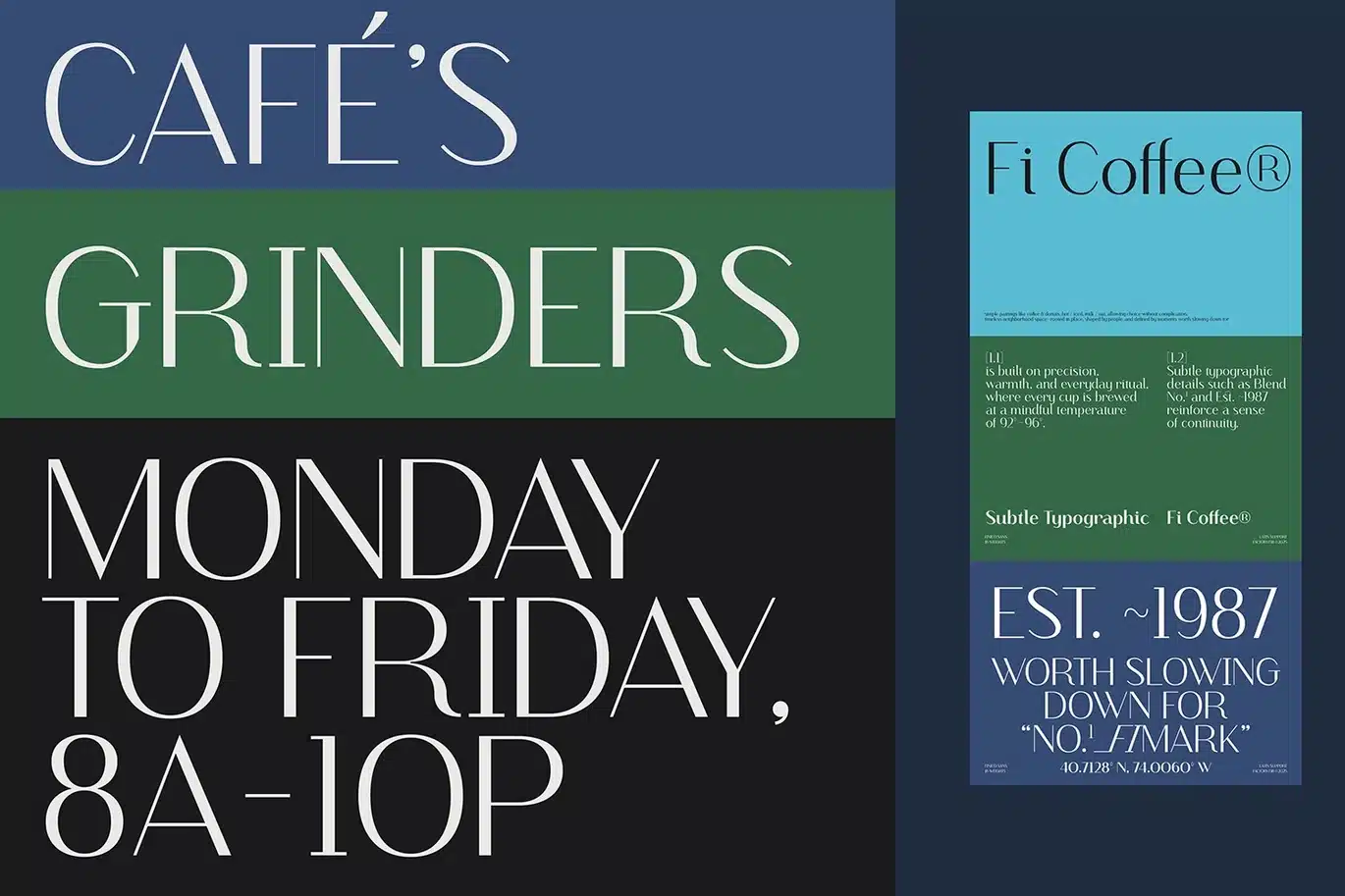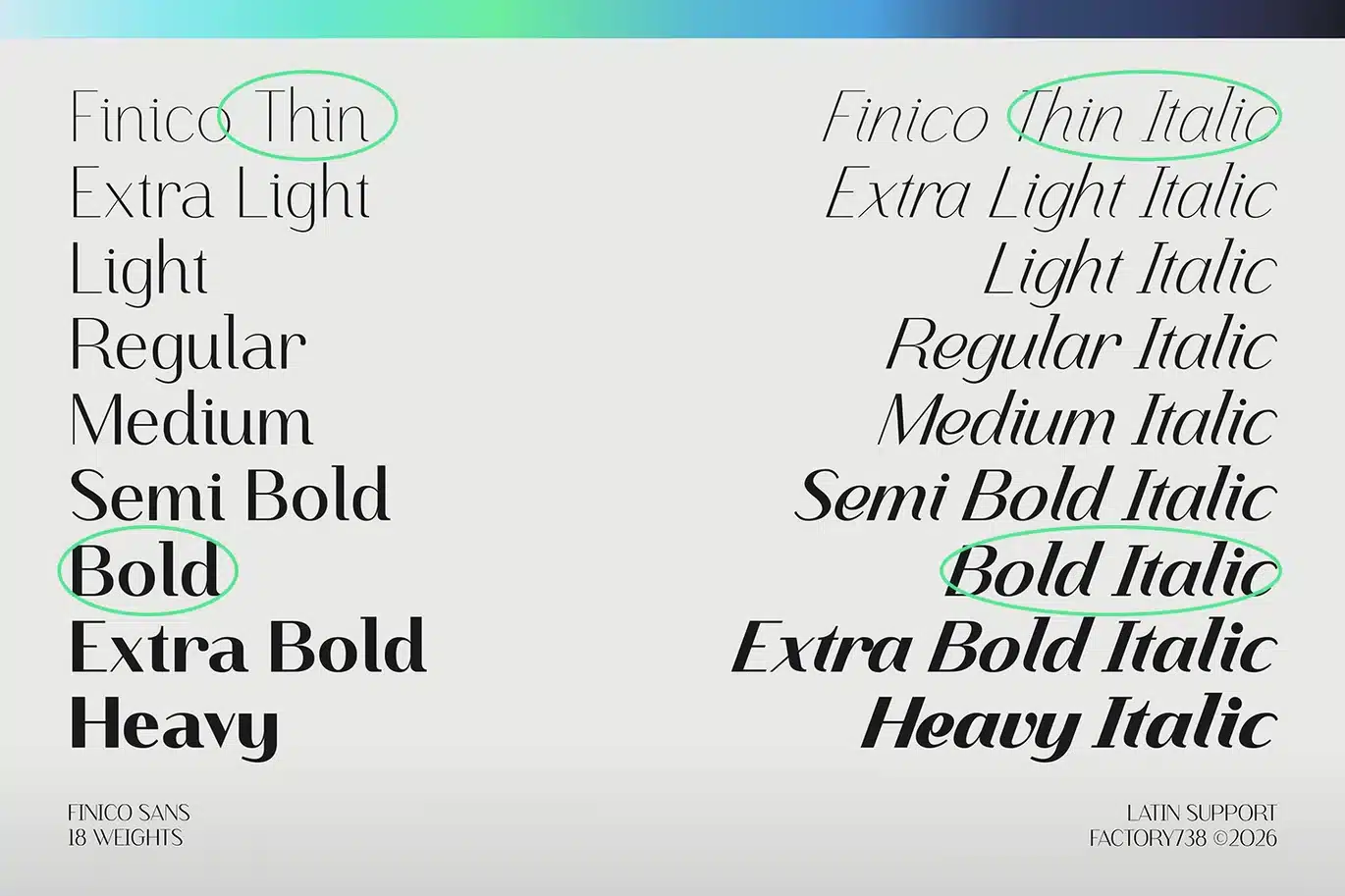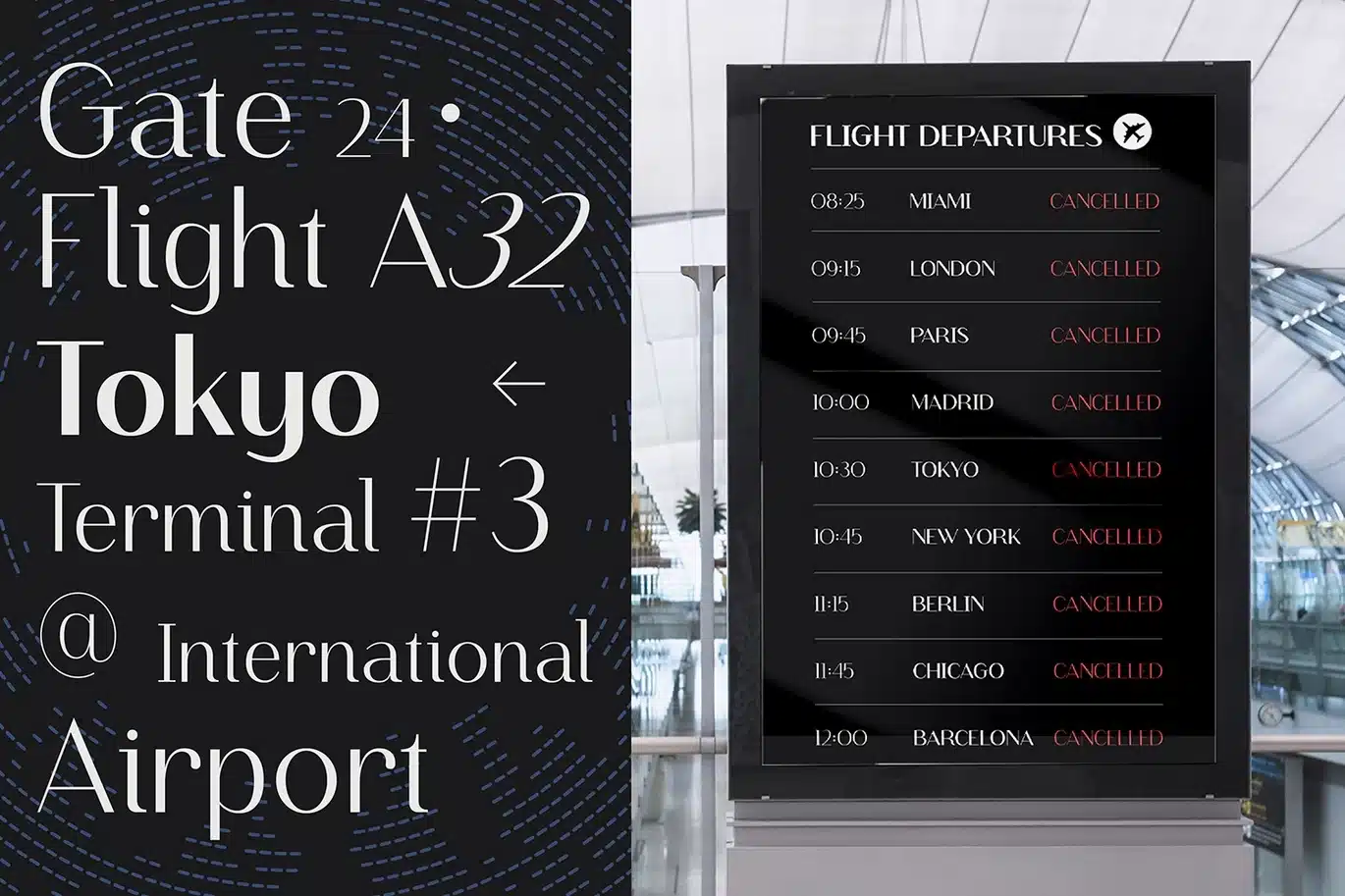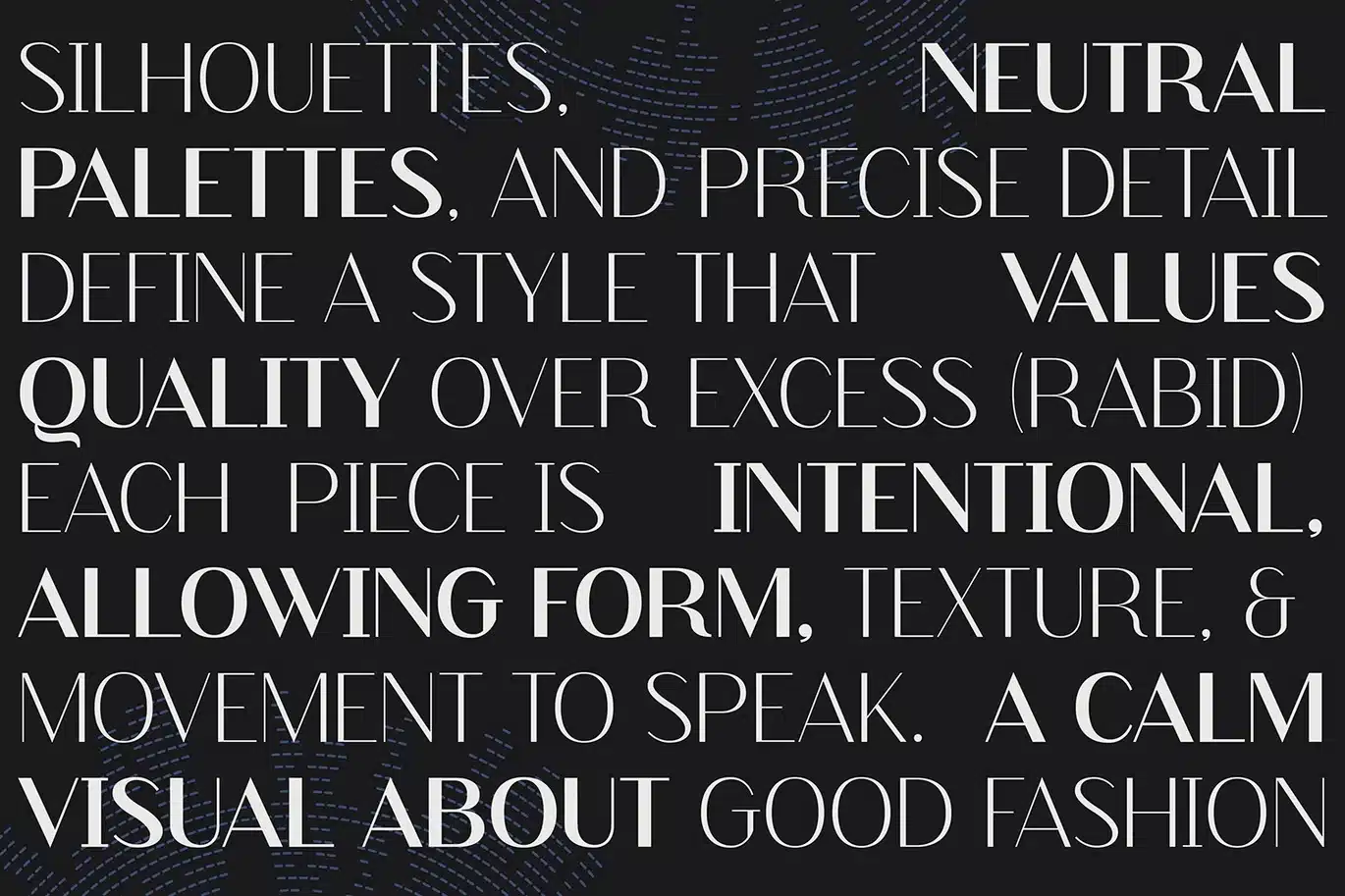
Finico Sans – Modern Clean Sans Serif Font
Finico Sans is a modern and elegant sans-serif typeface designed for clarity, balance, and versatility. With clean proportions and subtle details, this font delivers a professional and contemporary look that works beautifully across digital and print projects.
This version includes a focused 4-style set—giving you essential weights for contrast and hierarchy while keeping your typography simple and efficient. The italics are gently slanted and refined, adding expression without losing readability.
Perfect for designers who need a reliable modern sans serif for branding, editorial layouts, UI design, and social media content, Finico Sans provides a clean and timeless typographic voice.